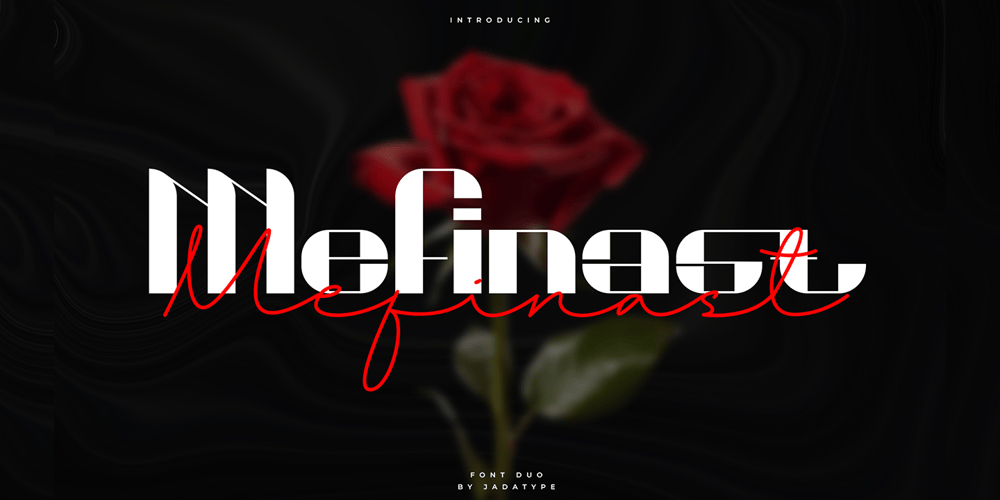
Mefinast Font Family was designed by Jada Akbal and published by Jadatype. Mefinast contains 2 styles and family package options. Mefinast is a Font duo font that has Script & Sans Serif. Suitable for product, Branding, social media, logotype and so on. contains standard English letters, numbers, punctuation, and several accents that support multilingualism.